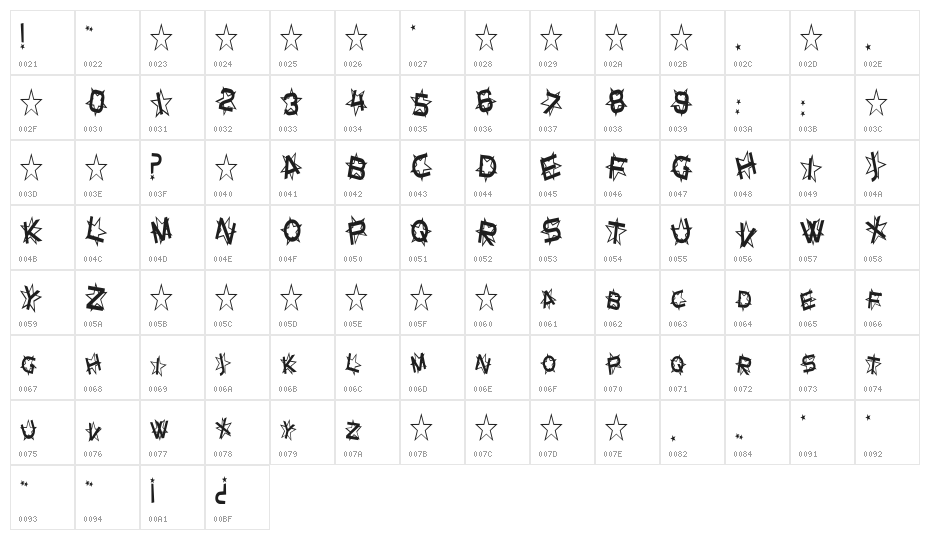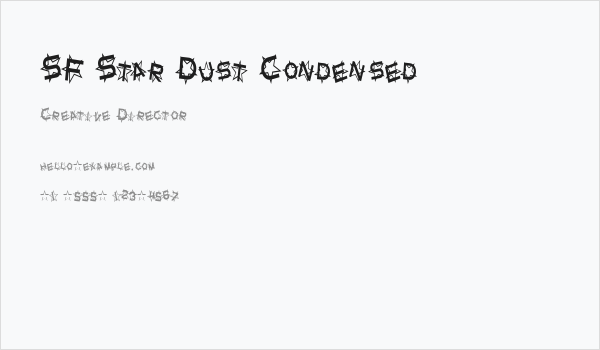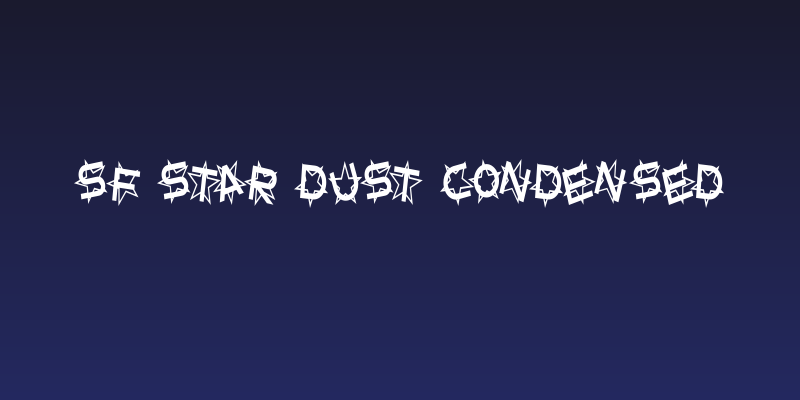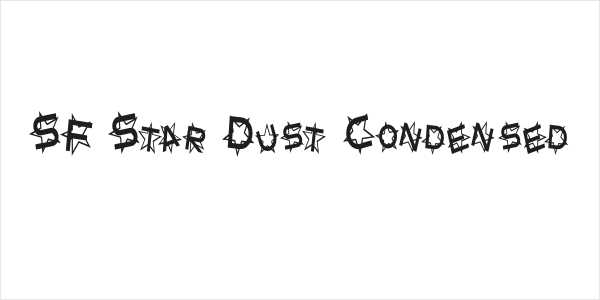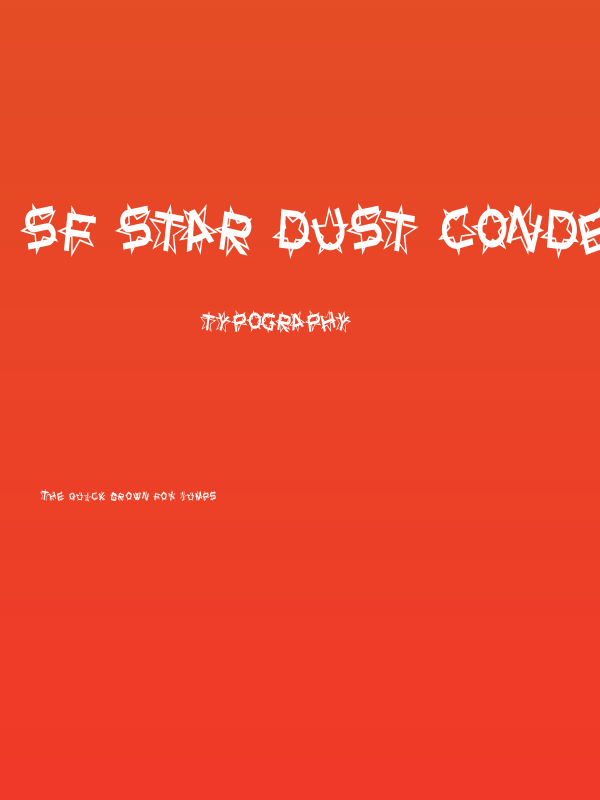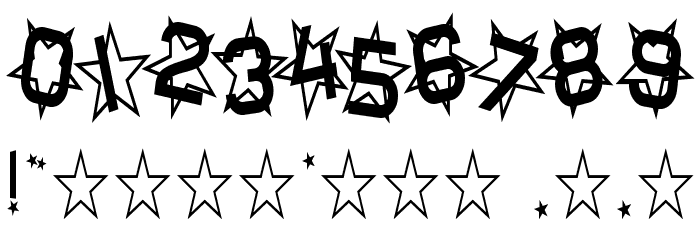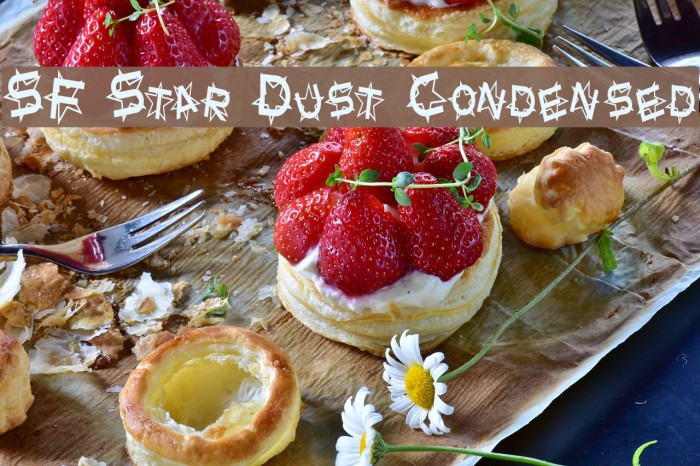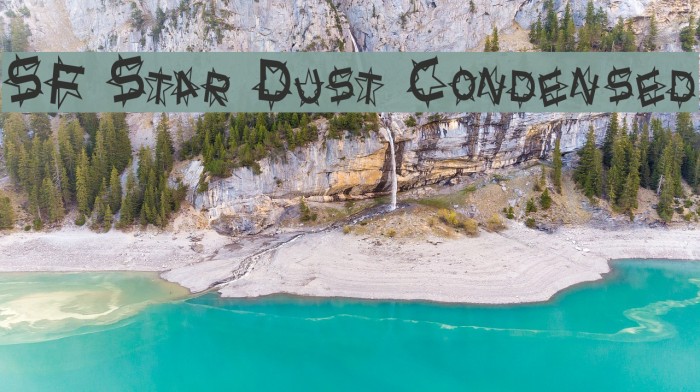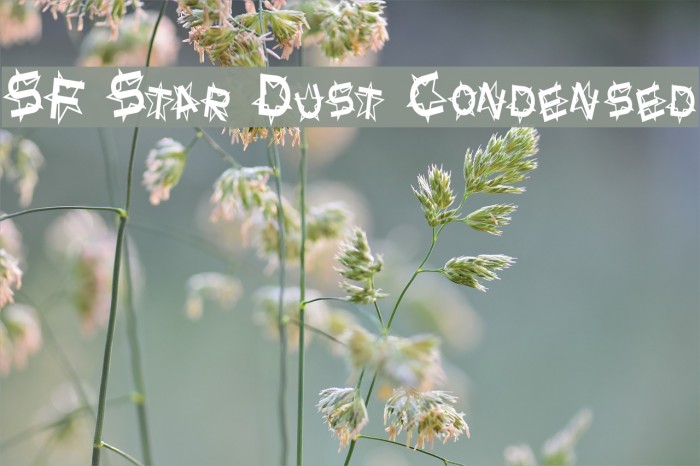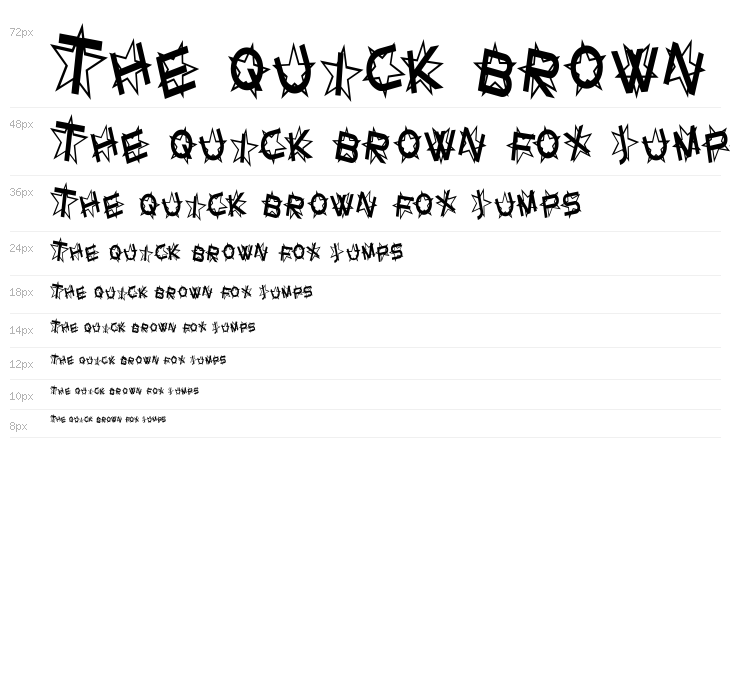
SF Star Dust Condensed Font
SF Star Dust Condensed Description
This font features a bold, edgy design with a star motif integrated into each character, creating a dynamic and eye-catching appearance. The letters are angular and sharp, with a condensed width that gives a compact feel. The design is highly decorative, making it suitable for projects that require a standout visual element. The characters are consistent in their star-themed style, providing a cohesive look across the alphabet, numbers, and special symbols. The font's unique aesthetic is perfect for creative and unconventional designs.
| Proposed Projects | Ideal for posters, album covers, event flyers, and any project needing a bold, decorative touch. |